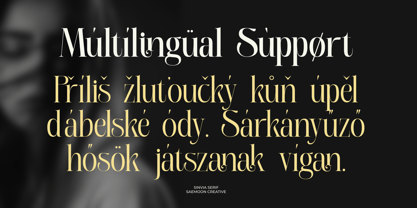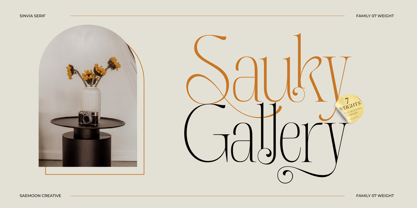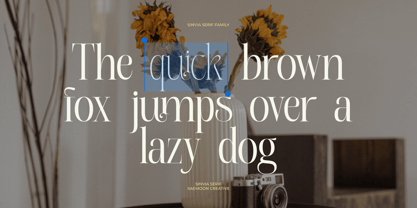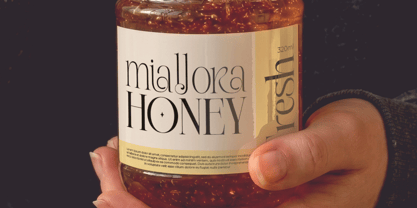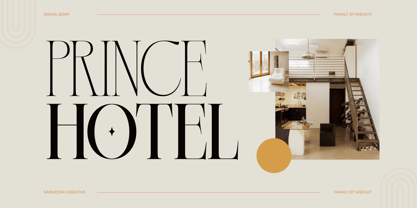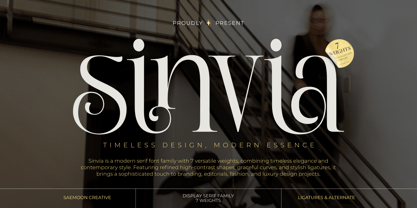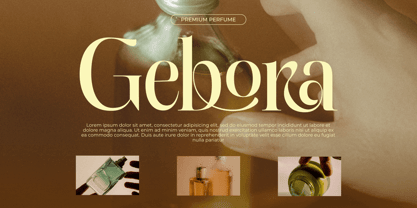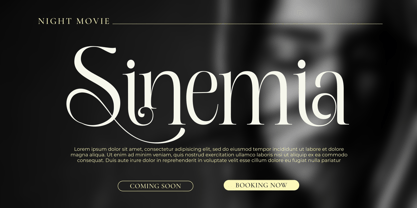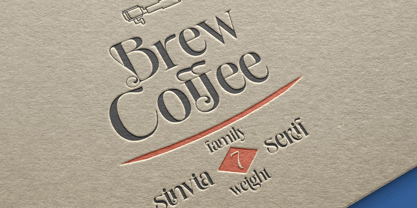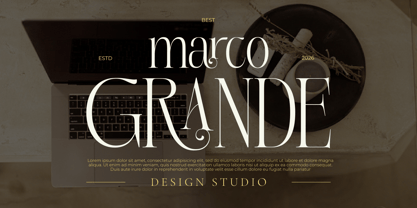
Sinvia
Sinvia is a modern display serif family that blends timeless elegance with contemporary sophistication. Designed with refined high-contrast strokes, graceful curves, and distinctive ligatures, Sinvia delivers a luxurious and memorable visual presence.
Featuring 7 versatile weights, this typeface family offers flexibility for a wide range of creative applications, from premium branding and editorial layouts to fashion campaigns, packaging, logos, and luxury-inspired designs. Its carefully crafted details and stylish alternates allow designers to create unique, high-end typography with ease.
Whether used for bold headlines or elegant visual identities, Sinvia brings a perfect balance of classic beauty and modern expression to every project.
Features:
• 7 Weights
• Uppercase & Lowercase
• Numbers & Punctuation
• Multilingual Support
• Ligatures
• Stylistic Alternates
Perfect for:
Branding, Fashion, Editorial Design, Luxury Packaging, Logo Design, Wedding Projects, Beauty Products, Magazines, and Social Media Content.